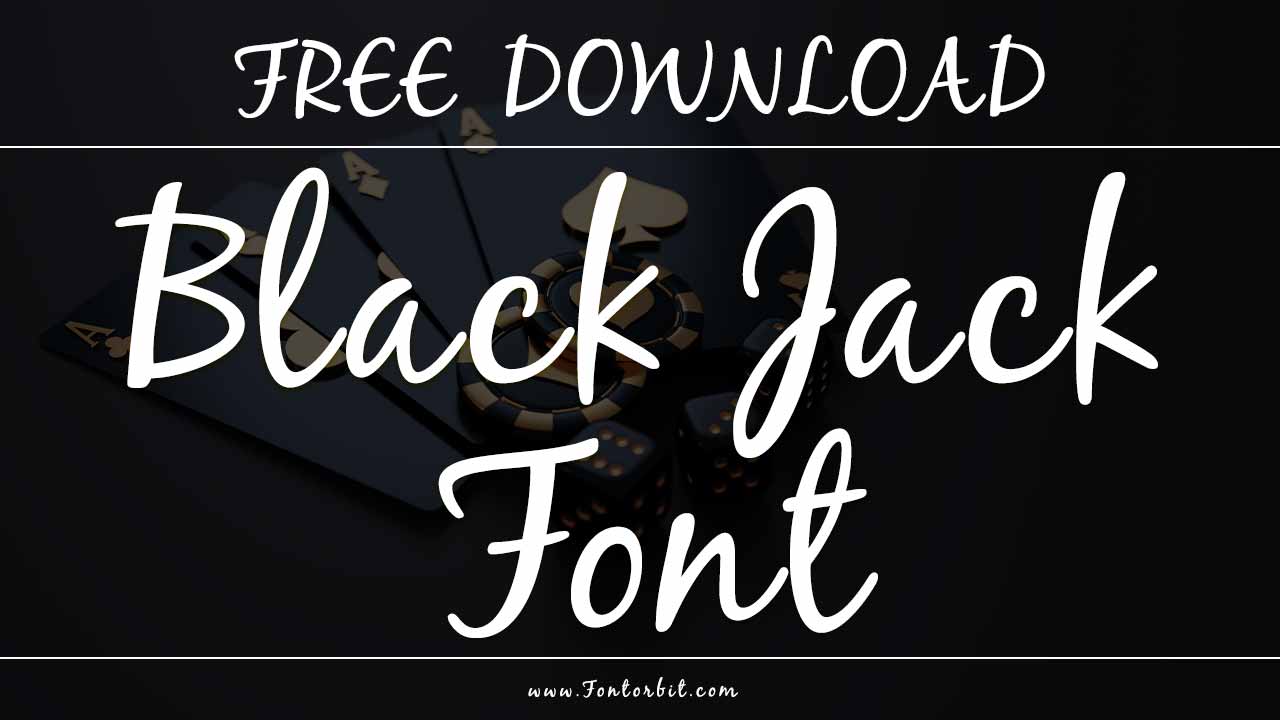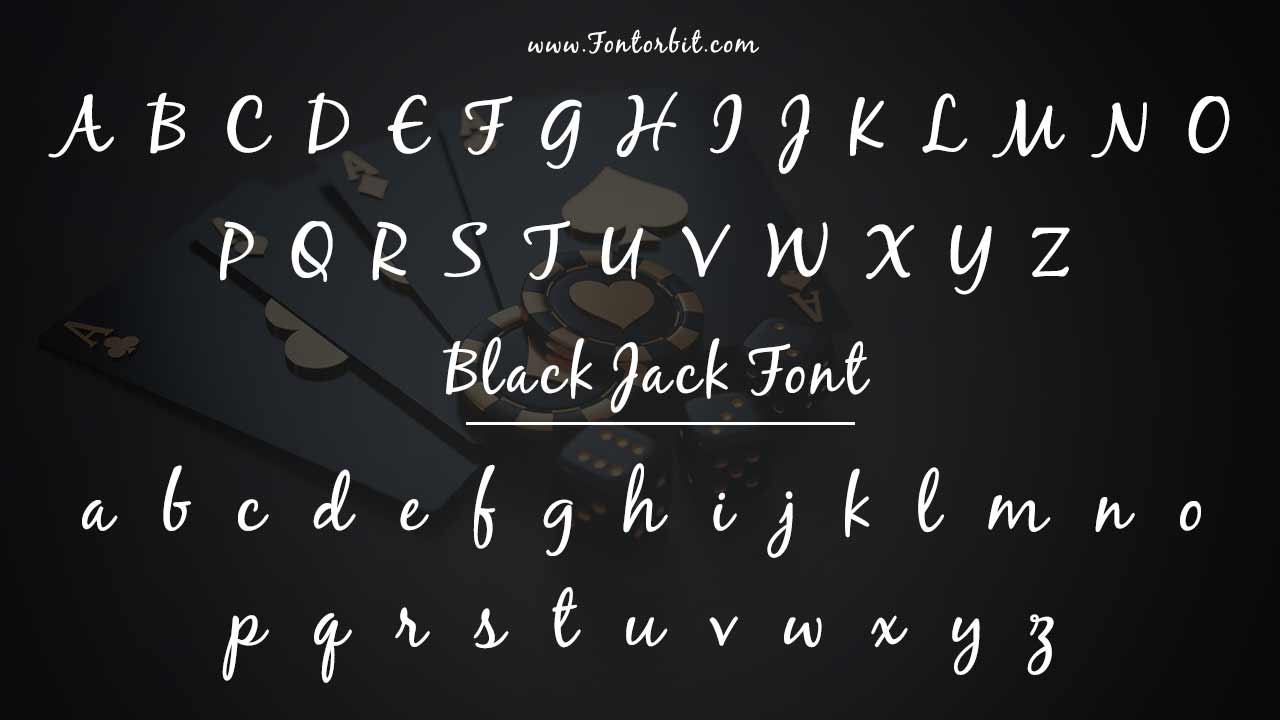
Black Jack is a beautiful script font designed by Ronna Penner. Its smooth, flowing strokes give it a natural handwritten look, making it a great choice for logos, branding, product packaging, advertising, and printed materials. With its vintage style and modern font design, Black Jack stands out as one of the most popular fonts among designers.
What Makes Black Jack Special?
The beauty of Black Jack is in its simplicity. Unlike overly decorative script fonts that can be hard to read, Black Jack strikes a perfect balance between stylish and legible. Its vintage yet modern aesthetic makes it highly versatile. With its elegant curves and slightly playful character, this font is ideal for both casual and sophisticated designs.
- Style: Handwritten, Script, Calligraphy
Black Jack Font Family Includes
- Black Jack Regular
- Black Jack Rollin
Every designer knows the struggle of finding the perfect script font that looks handwritten but still maintains clarity. Black Jack solves that problem with its smooth, flowing strokes. But that’s not all; it comes with several features that make it a favorite among creatives:
Why Choose Black Jack Font?
This amazing font comes with several key features that make it perfect for design projects.
- 400 glyphs with a rich character map
- Swash and stylistic characters for a unique look
- Alternative characters to add variety
- Perfectly combination font with bold serif and sans fonts
- Handwritten Elegance – It has a natural flow, making designs feel personal and inviting.
- The font offers a rich character set for a variety of uses.
- Swashes & Stylistic Characters add flair to your text.
- Great for customization and creativity.
- Works harmoniously with bold or clean fonts.
- Bonus Illustrations – Some versions come with extra illustrations for added creativity.
Where To Use Black Jack Font
Black Jack is versatile and works well in various design applications:
1. Logos & Branding
- A stylish logo font with a classic and modern feel
- Works well with bold serif or sans-serif fonts for contrast
A logo is the face of a brand, and choosing the right font is crucial. Black Jack has the right balance of sophistication and warmth, making it perfect for brands that want to appear both stylish and approachable. Pair it with a clean sans-serif font for a modern look, or use it alone for a more organic feel.
2. Product Packaging & Labels
- Great for labels, tags, and packaging
- Looks elegant on handmade and luxury products
If you’re designing labels for handmade products, gourmet foods, or luxury cosmetics, Black Jack adds a classy touch. Its elegant strokes work well on product tags, stickers, and even high-end packaging.
3. Posters & Printed Materials
- Ideal for advertising, invitations, and flyers
- Enhances vintage-style projects with antiquity charm
From wedding invitations to promotional posters, Black Jack has a natural charm that enhances printed designs. Whether you’re creating an elegant event flyer or a fun greeting card, this font helps deliver the message beautifully.
4. Web & Digital Use
Fonts play a huge role in web design. Black Jack, available in SVG format, works well in website logos, social media graphics, and digital ads. It integrates smoothly into programs like Adobe Illustrator, Photoshop, and Canva, making it easy to use across different platforms.
Additional Uses For Black Jack
Beyond traditional uses, Black Jack can elevate a variety of creative projects:
- Handmade Crafts: Perfect for DIY projects like greeting cards, scrapbooks, and custom invitations.
- T-shirts & Apparel: Adds a trendy handwritten touch to clothing designs.
- Stationery & Business Cards: Enhances personal and professional branding materials.
- Restaurant Menus & Signage: Gives menus a warm and inviting feel.
- YouTube & Social Media Graphics: Creates eye-catching text overlays for thumbnails and posts.
- Greeting Cards & Invitations: Perfect for birthday cards, wedding invitations, and thank-you notes.
Best Font Pairings
To create a perfect combination, pair Black Jack with:
6.How Many Glyphs Does Black Jack Have?
It includes 400 glyphs with a full character map and alternative characters.
7.Can I Use Black Jack For Product Packaging?
Yes! It’s widely used for labels, posters, packaging, and printed materials.
8.What Are The Best Fonts To Pair With Black Jack?
Fonts like Montserrat, Raleway, and Playfair Display complement Black Jack beautifully.